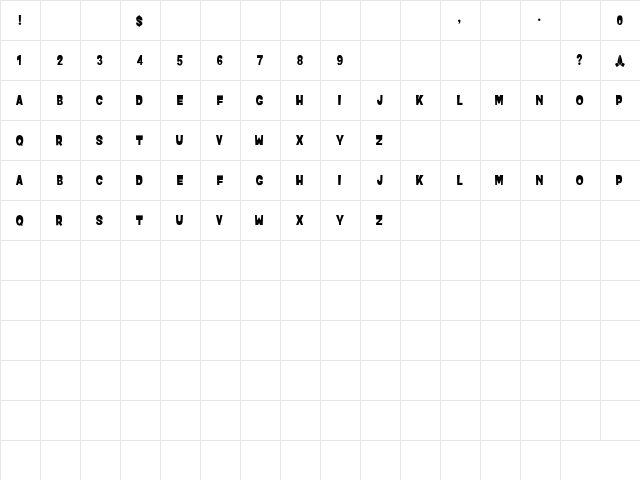
Donation Regular
| Designer | hindro cholis |
Design Context for Donation Typeface
Donation is a composed and adaptable typeface that performs quietly and consistently across a wide range of design contexts.